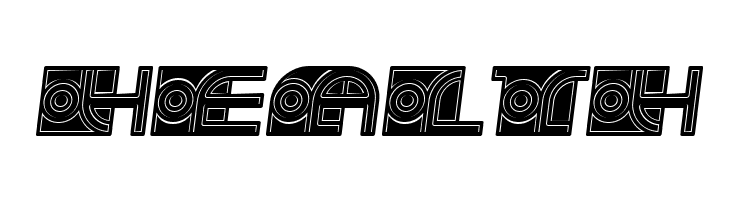
Energized Filled Regular Font
A bold, geometric font with a modern, energized style.
Braunschweig Regular Font
A bold, retro 3D font with a dotted texture and shadow effect.
Digital Arcade Regular Font
A bold, 3D pixelated font with a retro arcade game aesthetic.
Gemessene Regular Font
A bold, geometric font with a modern, industrial feel and outlined characters.
Forehead 3D 1 Regular Font
A bold, 3D font with a modern, geometric design and shadow effects.
Strongbox Italic Font
A bold, italicized font with angular, geometric characters.
Element Medium Font
An ornate and decorative font with intricate swirls and flourishes.
Sea Gardens 3D Italic Font
A bold, 3D italic font with outlined characters and a modern style.
Hashtag Font
A tall, narrow, and modern font with art deco influences and tight spacing.
Braillenum Hollow Bold Font
A bold, hollow circle-based font inspired by Braille, combining functionality with artistic design.
Meine Regular Font
A bold decorative font using illustrated faces as characters.
Mokhabiso Regular Font
A decorative font with bold geometric patterns inspired by traditional art.
Toledo Hollow Regular Font
A bold, hollow font with geometric shapes and a modern, futuristic style.
Heritage Light Italic Font
A bold, three-dimensional font with a strong shadow effect and geometric design.
Yogurt Regular Font
A bold, geometric font with a layered, decorative design.
Capitalismo 2 Regular Font
A bold, geometric font with decorative borders and a modern, industrial style.
Pencil Filled Regular Font
A bold, decorative font with a pencil-like fill and thick outlines.
Tuyaux Rustique Regular Font
A bold, decorative font with intricate, layered strokes and a tubular, mechanical appearance.
A bold, 3D font with playful, dynamic characters and shadow effects.
Trainspotter 3D Italic Font
A bold, 3D italic font with textured interiors and shadowed outlines.